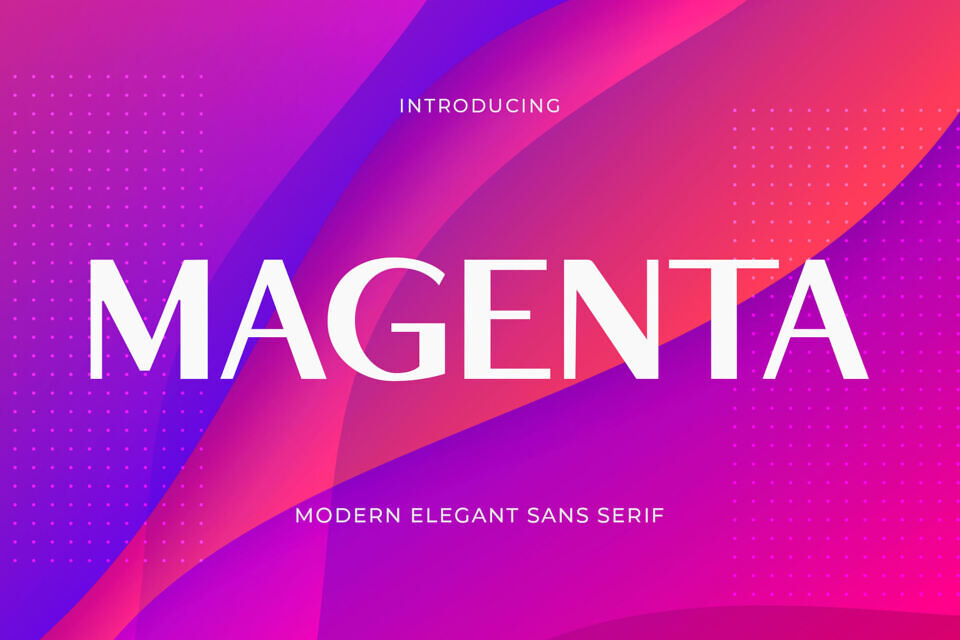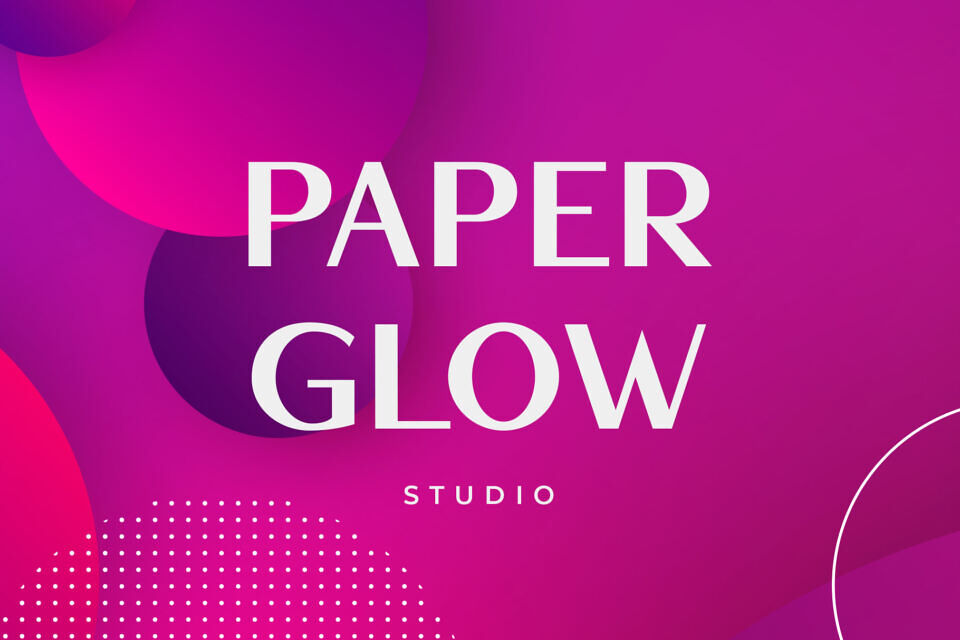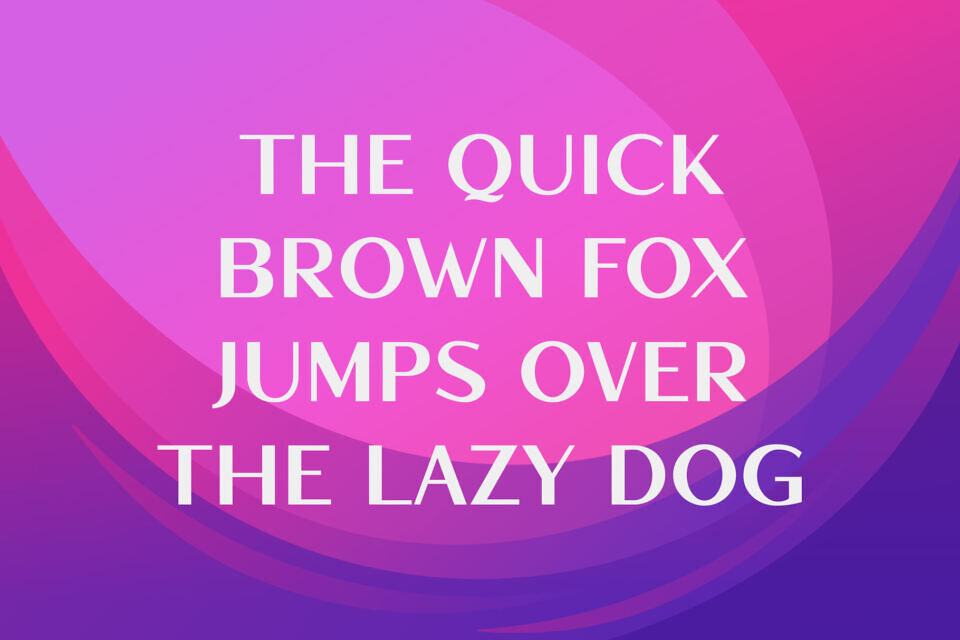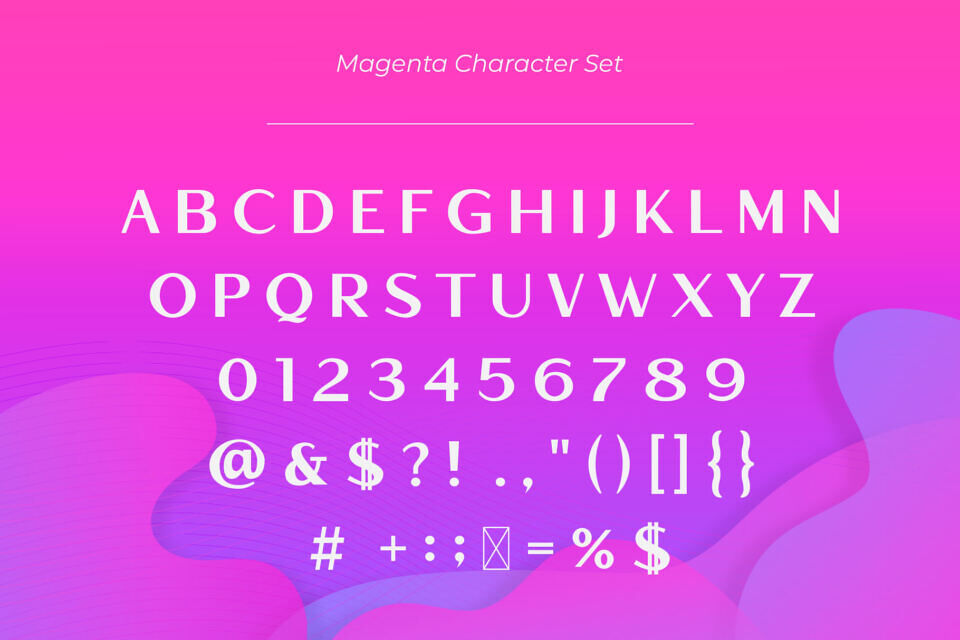
Magenta Font
Introducing Magenta by TypeLogue Studio, a modern sans serif font with elegant style this is perfect for branding, logos, invitation, magazines, product packaging and more.